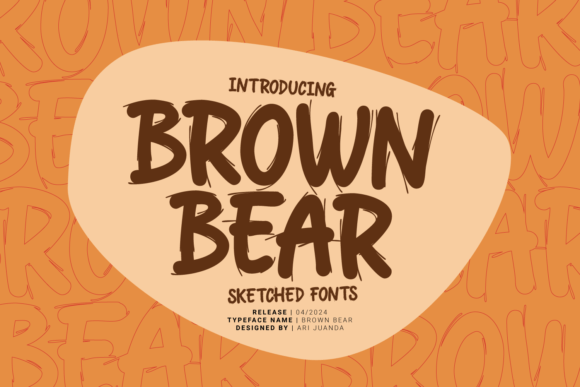
Unleash Whimsy with Brown Bear Font: A Designer’s Delight
Have you ever been in the midst of a creative project, only to find that the perfect font is elusive? I recall a particularly frustrating moment when I was working on a children’s book design, searching for a font that could capture the playful essence of my illustrations. The search led me to discover the charming “Brown Bear” font, which has since become a staple in my design toolkit.
A Personal Review: What I Love About Brown Bear
As a designer, I appreciate fonts that bring a touch of personality to my projects. Here’s what I love about Brown Bear:
- ✨ Playful and Whimsical: Brown Bear embodies the spirit of an animated ursine character, adding a dash of fun to any design.
- ✅ Multilingual Support: With support for Latin Western Europe languages, this font is versatile and ready to use for a wide range of projects.
- ✅ Sketch-Inspired Design: The font’s carefully crafted, sketch-inspired design gives it a unique and endearing quality.
- ✅ Comprehensive Character Set: Brown Bear includes both capital letters and punctuation, ensuring you have everything you need for your designs.
While Brown Bear is a delightful font, there are a few minor considerations to keep in mind:
- ⚠️ Legibility at Small Sizes: As with many display fonts, Brown Bear may lose legibility at very small sizes. It’s best used at larger sizes where its playful details can shine.
- 🤔 Limited Formality: Given its playful nature, Brown Bear might not be the best fit for projects requiring a high level of formality or professionalism.
The Backstory Behind Brown Bear
The Brown Bear font was inspired by the playful and adventurous spirit of the forest. Its designer aimed to capture the whimsical nature of a friendly bear through a sketch-inspired approach. The result is a font that’s both charming and versatile, suitable for a wide range of creative projects.
Brown Bear font brings a unique blend of playfulness and charm to any project. Its versatility, paired with a comprehensive character set and multilingual support, makes it an excellent choice for designers, crafters, and creative hobbyists looking to add a dash of fun to their creations.